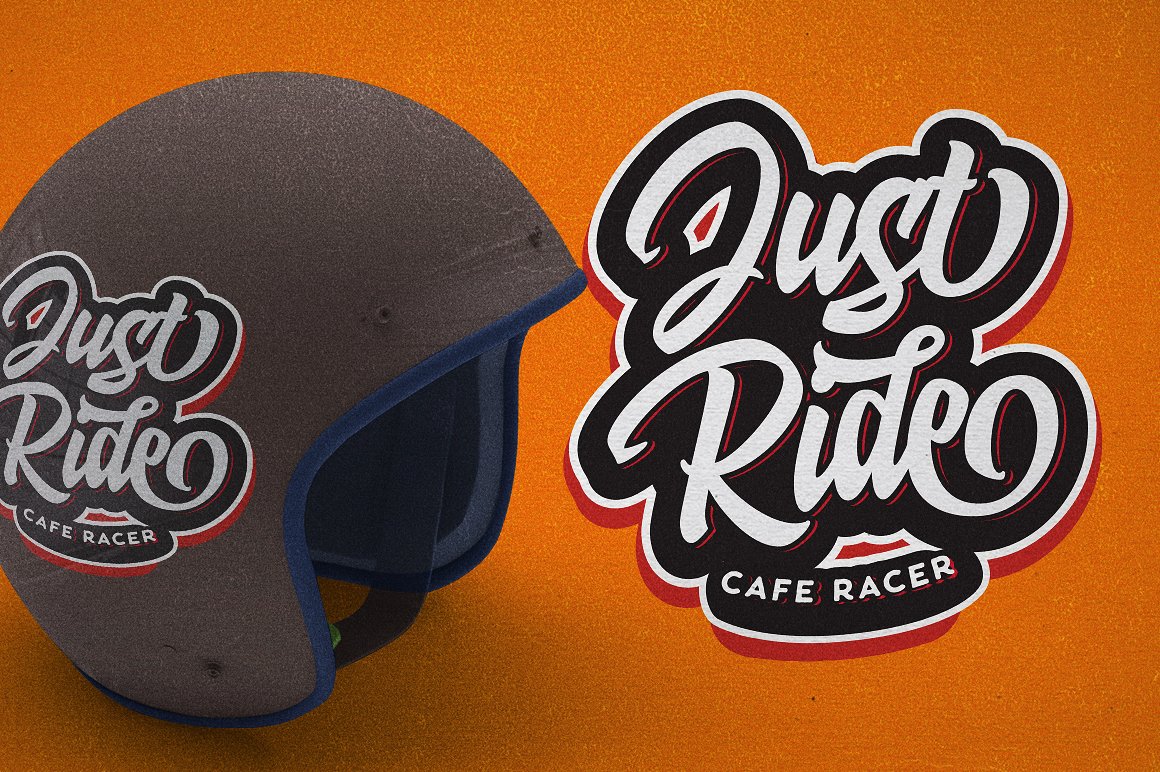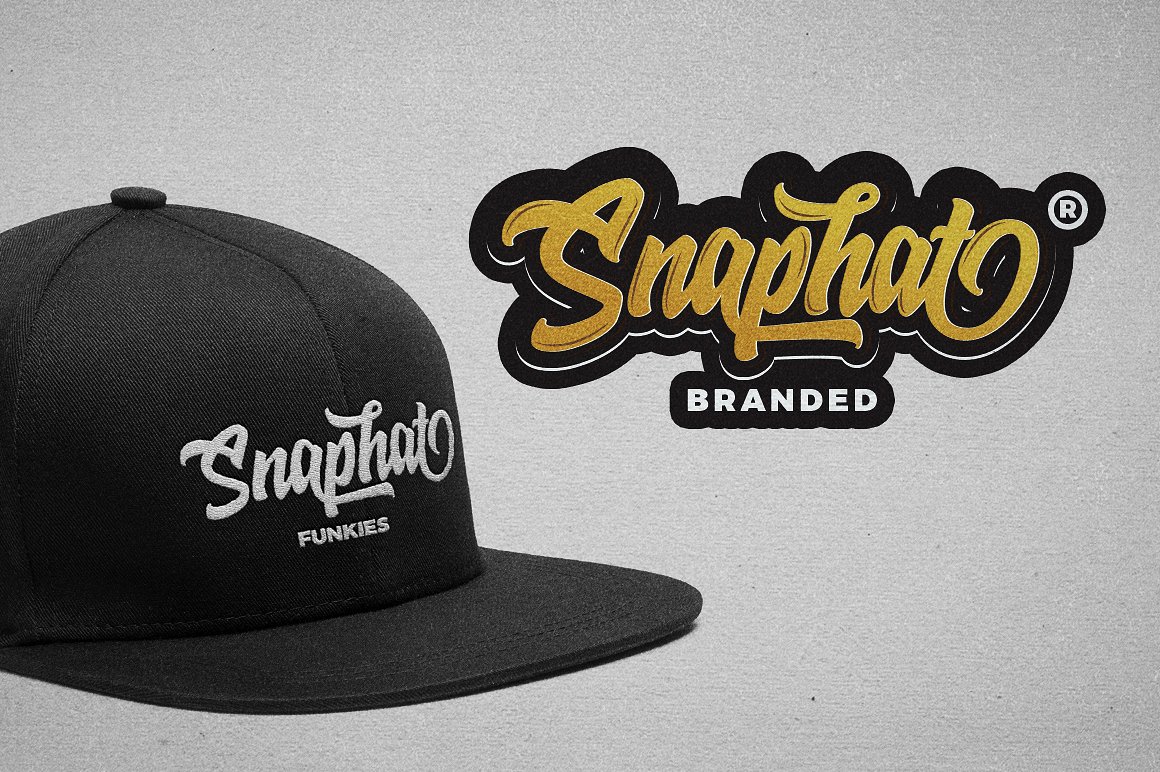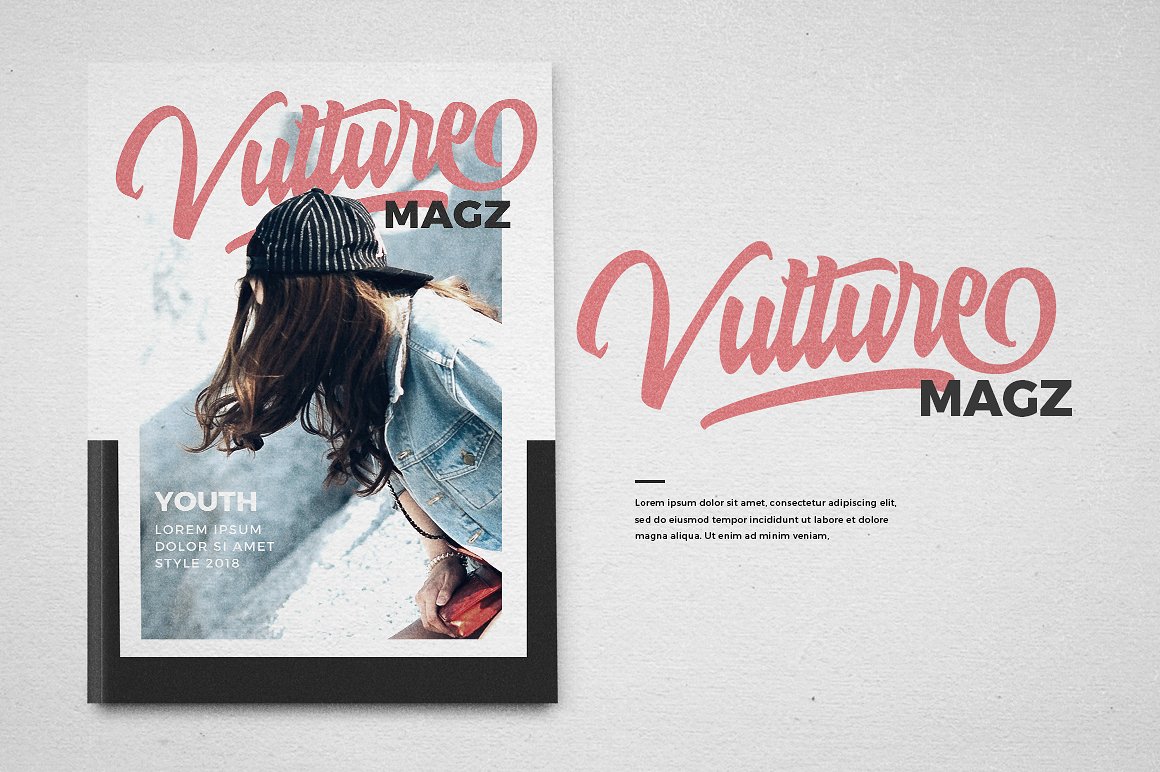
Hoodson Script Font – Free Demo
A beautiful Modern handmade font Typeface. Introducing Hoodson Font, it is was designed and shares by Dirtyline Studio. Hoodson Script Inspired by Retro style and combination with Hand Lettering style, and a very bouncy baseline It has a perfectly paired complimentary marker font , and a super handy set of bonus Swash. Ideal for logos, handwritten quotes, product packaging, header, poster, merchandise, social media & greeting cards.